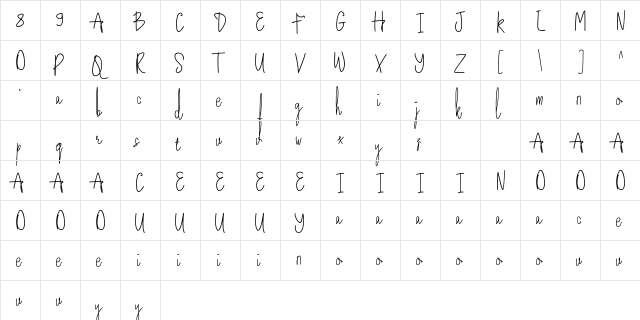
Lettered Regular
| Foundry | sutype |
| Designer | ignatius sutono |
Design Context for Lettered Typeface
Lettered takes a measured approach to typography — its balanced proportions and neutral character make it a reliable workhorse for both digital and print work.